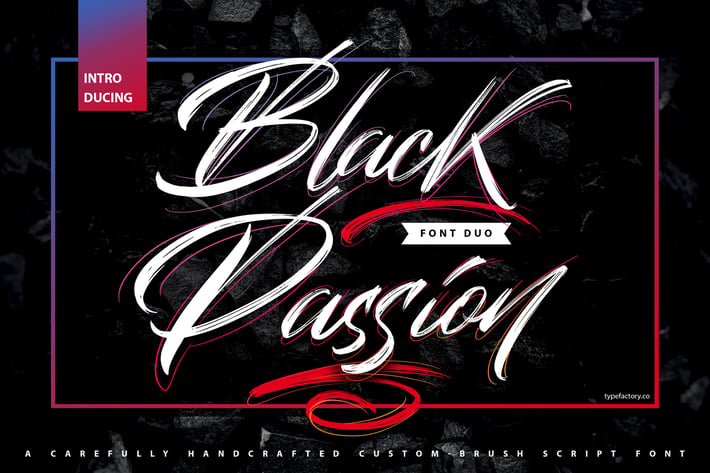
Black Passion - Brush Script Font
Black Passion is a delicately handcrafted brush script typeface that utilizes a unique approach to make a comprehensive font. The font may seem messy to the eye, but it also embodies a sense of elegance and uniqueness. Thanking the handcrafted appearance of the font – Black Passion is flawless for all of your desires and can be used beautifully well for creating your favorite quotes, writing your music, writing in magazines, and much more.